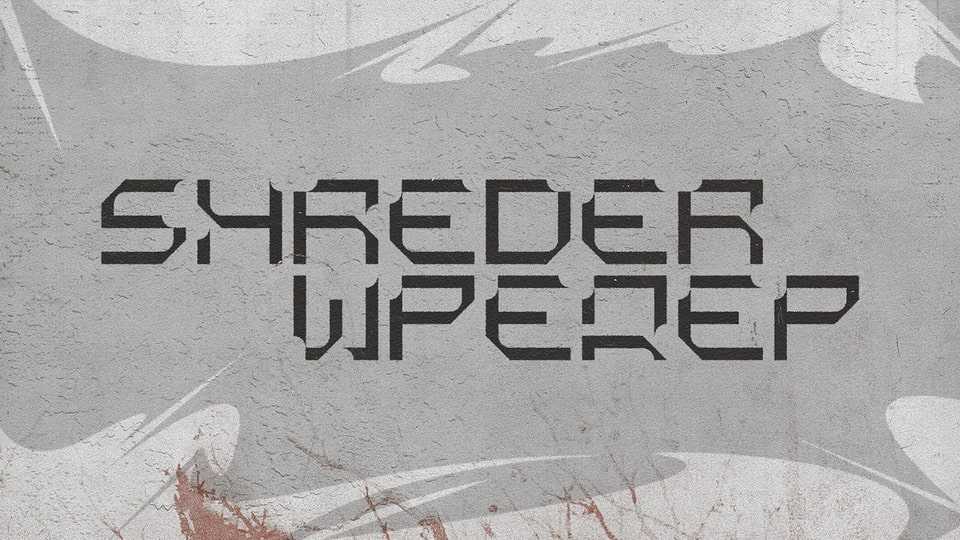
Download Shreder font, an experimental, blocky, and futuristic typeface that challenges the boundaries of conventional design. Crafted with geometric precision and edgy block elements, Shreder font creates a sense of forward-thinking innovation and digital aesthetics.
Designer: VICTOR KMIT